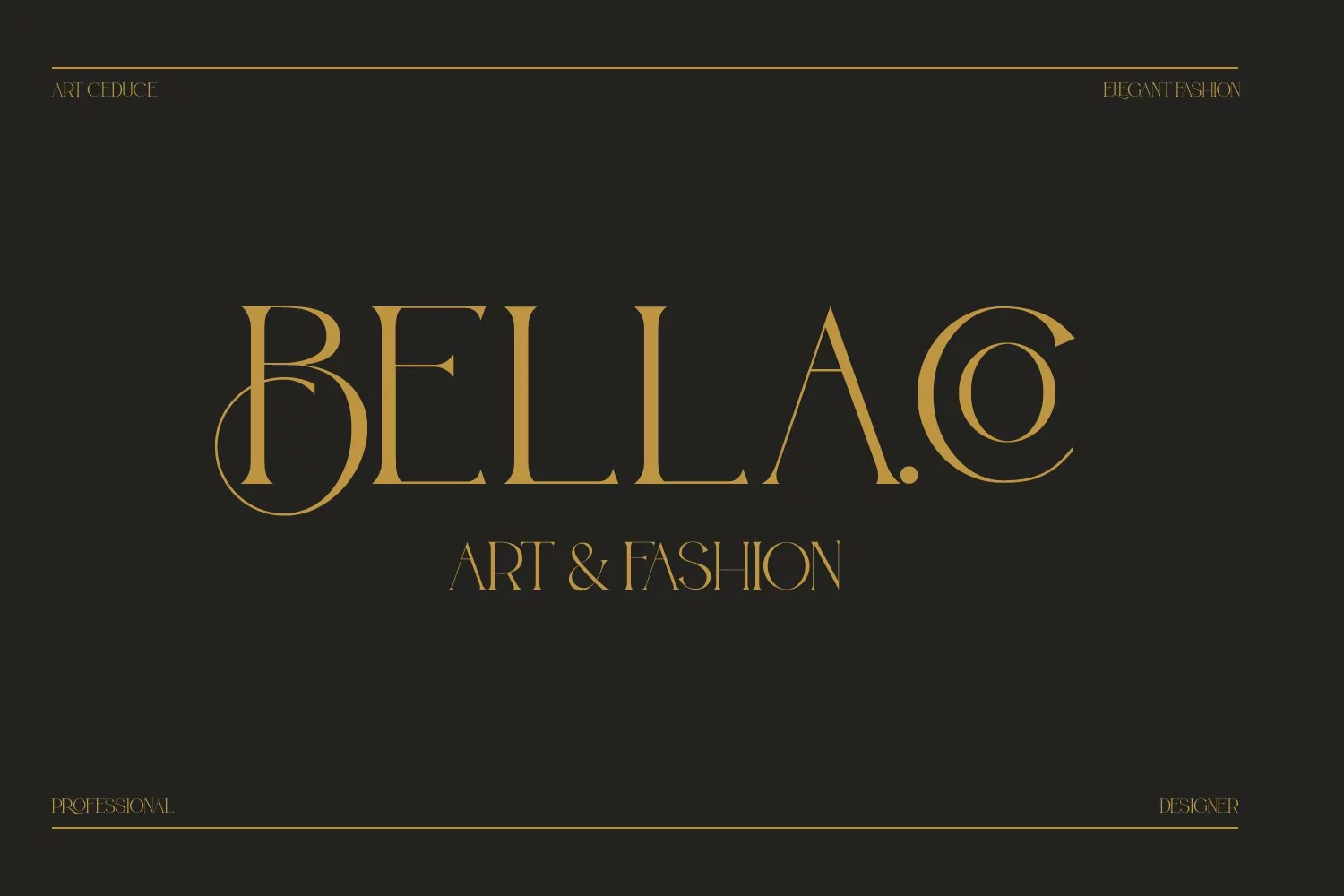
Bolin Gerii Luxury Serif Font
Bolin Gerii Luxury Serif Font is a handmade Modern Victorian handlettering, which is combining modern and classic typography with some awesome alternates. Yes we back to early 1800s, bring classic touch on this decade.